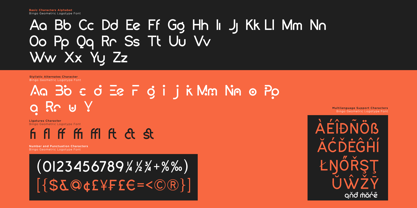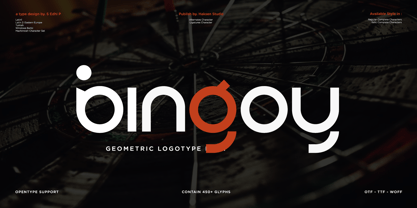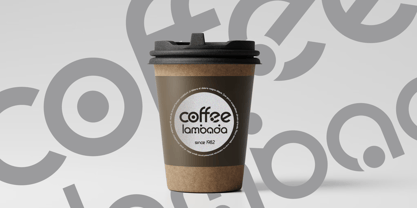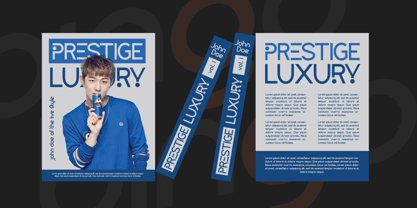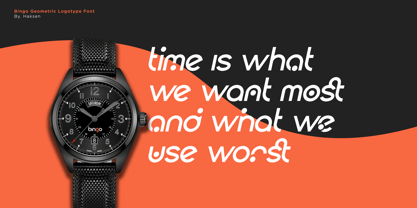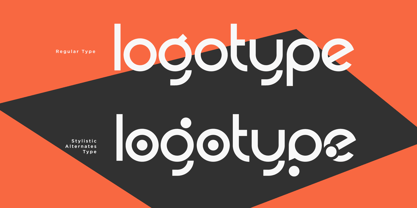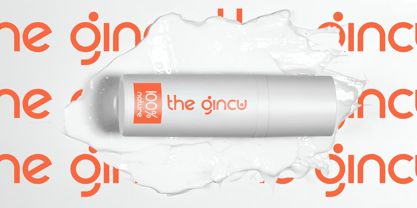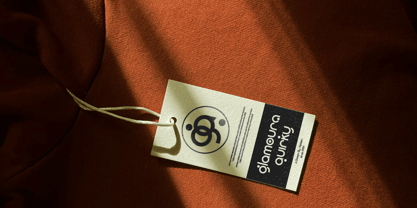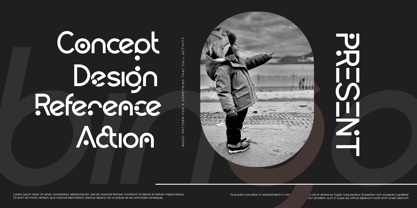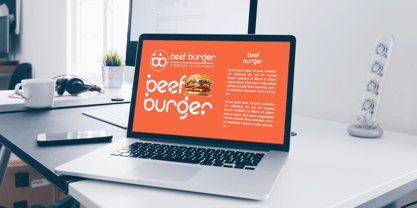
Bingoy
by Haksen
The Bingoy Font Family was designed by Sarwo Edhi Prayitno and published by Haksen. Bingoy contains 2 styles.
Bingo Font is a meticulously crafted typeface designed specifically for logos, branding, headers, and titling. With precise kerning and spacing tailored for impactful logos and branding materials, Bingo Font ensures your designs make a lasting impression. Please note, Bingo excels in visual applications where every detail matters. Elevate your design projects with Bingo Font today.
Features:
• Standar character A-Z and a-z
• Stylistic Alternates Font and Ligatures
• Numberial and Functional
• Multilinggual Character support